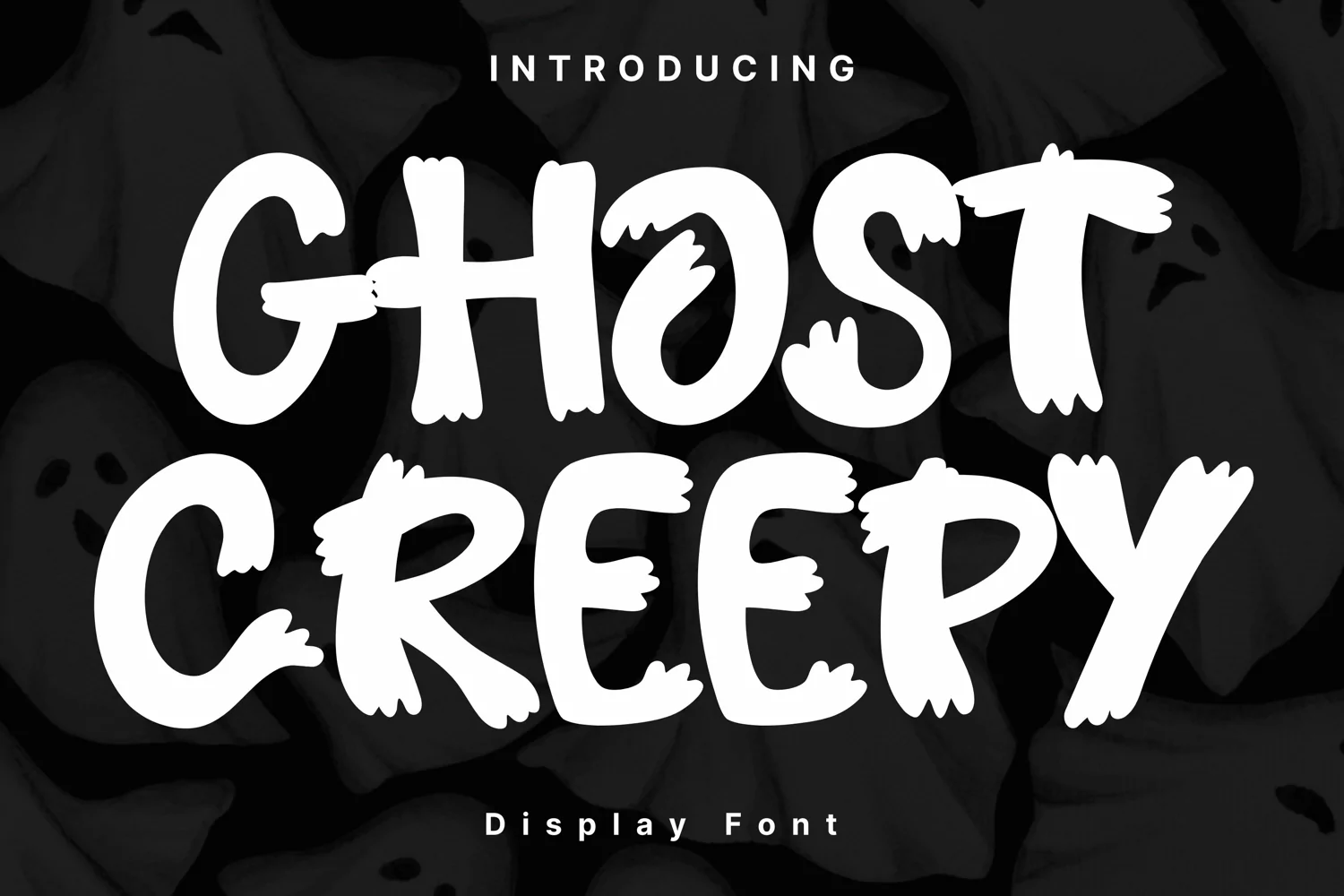
Ghost Creepy
Ghost Creepy Style is a whimsical and clean handwritten font. It can easily be matched to an incredibly large set of projects, so add it to your creative ideas and notice how it makes them stand out!